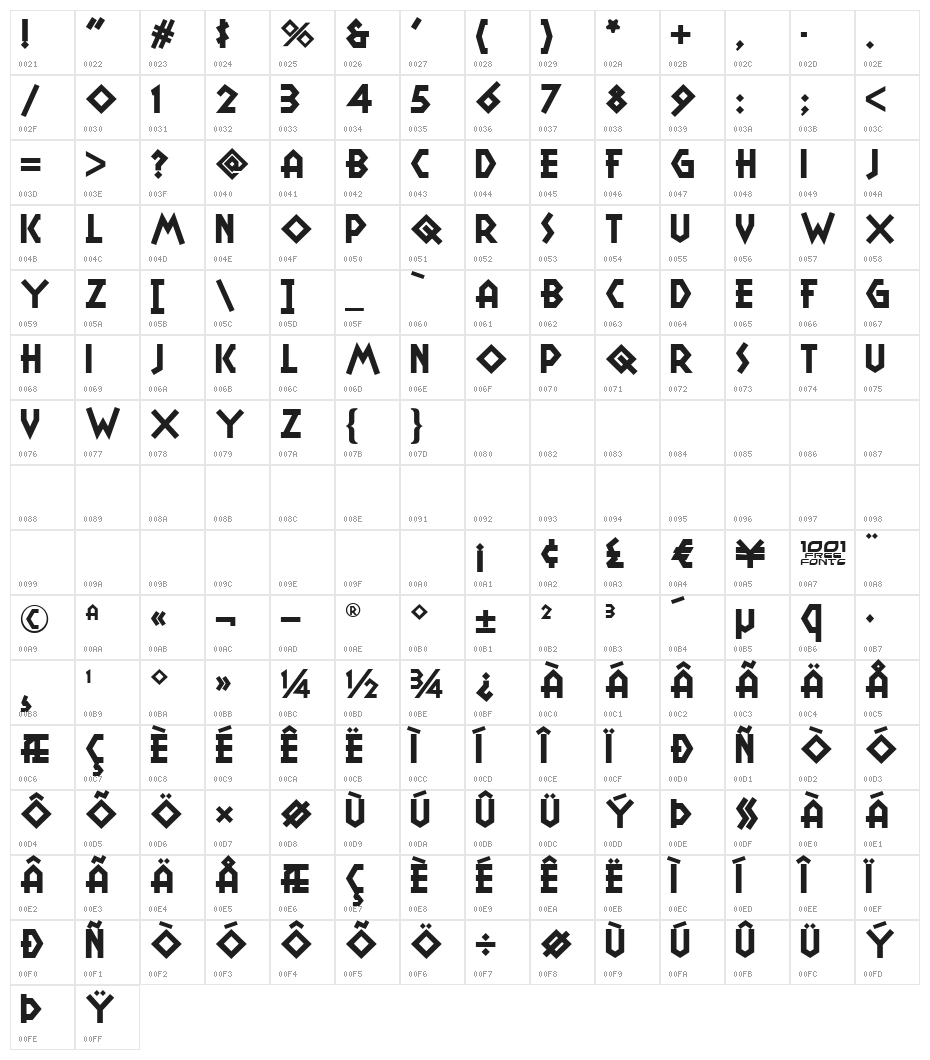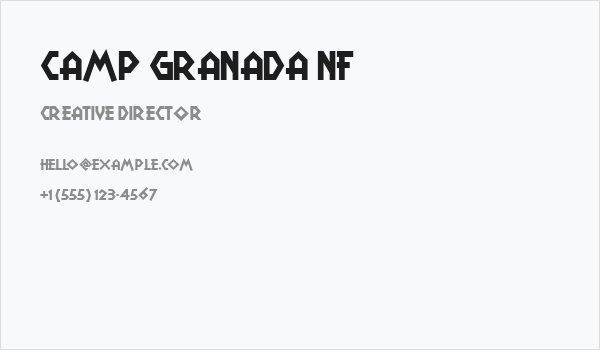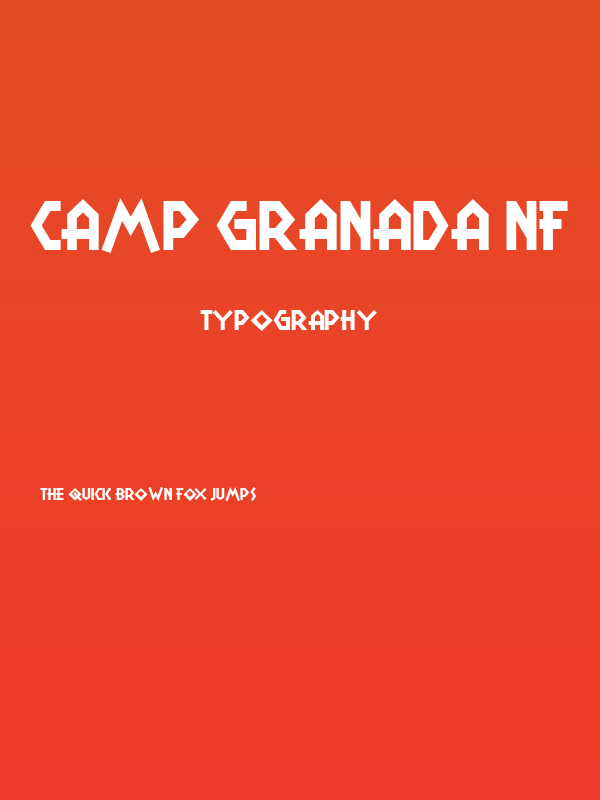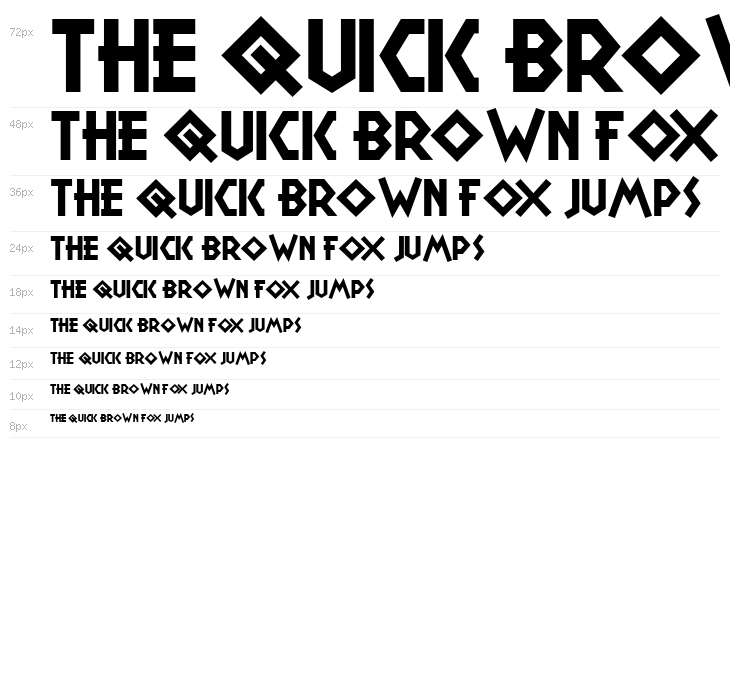
Camp Granada NF Font
Camp Granada NF Description
This font features a bold and geometric design with sharp angles and a distinct, blocky appearance. The uppercase letters are characterized by their uniform height and width, creating a cohesive and structured look. The lowercase letters maintain the same geometric style, ensuring consistency throughout the typeface. Numbers and special characters are designed to match the angular and bold aesthetic, making them stand out prominently. The overall style is reminiscent of a modern, industrial design, suitable for projects that require a strong visual impact.
| Overall Style | Modern, Industrial |
| Proposed Projects | Ideal for posters, logos, and branding materials that require a strong, impactful presence. |